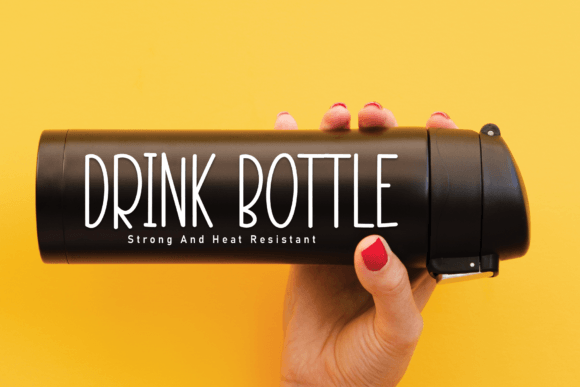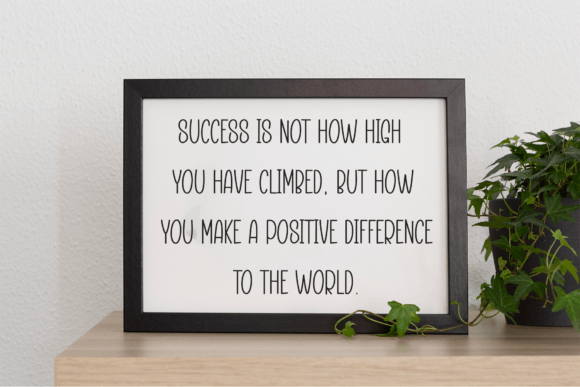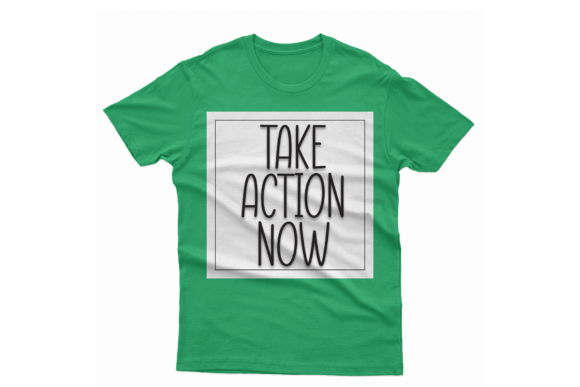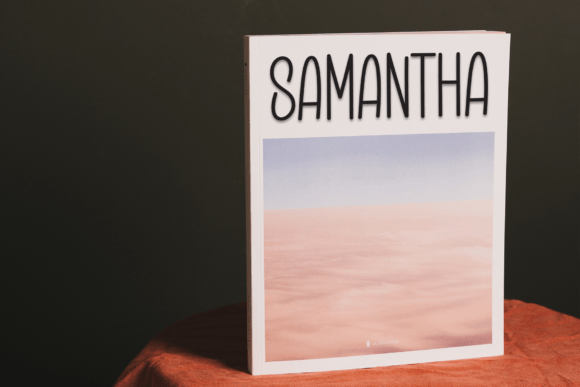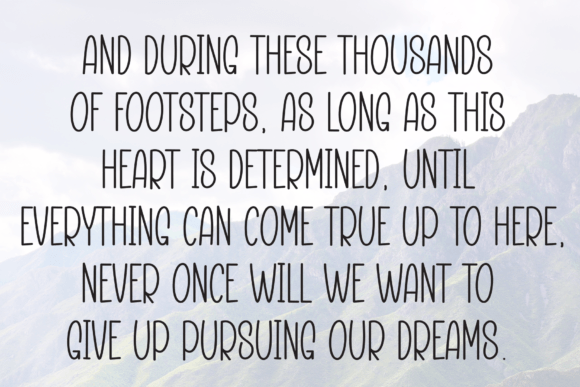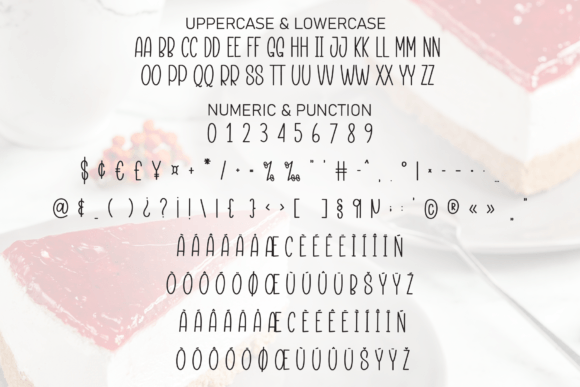
Introducing Cheese Cake Font: The Sweetest Addition to Your Design Collection
Are you tired of using the same old fonts in your designs? Do you want to add a touch of warmth and playfulness to your creations? Look no further than Cheese Cake Font, a charming and approachable handwritten display font that’s sure to delight. In this article, we’ll dive into the features and benefits of Cheese Cake Font, and explore how it can elevate your designs to the next level.
The Charm of Handwriting
Handwriting is a unique and expressive way to add personality to your designs. It can convey a sense of warmth, friendliness, and approachability that’s hard to replicate with traditional fonts. Cheese Cake Font takes the best of handwriting and distills it into a digital font that’s easy to use and versatile. With its flowing curves and playful strokes, Cheese Cake Font is the perfect way to add a human touch to your designs.
Unleashing the Power of Playfulness
Cheese Cake Font is more than just a pretty face – it’s also a powerful tool for adding playfulness and whimsy to your designs. Whether you’re creating wedding invitations, greeting cards, or social media graphics, Cheese Cake Font can help you connect with your audience on a more personal level. Its irresistible sweetness and playfulness make it perfect for designers and crafters who want to create designs that are fun, lighthearted, and engaging.
So, what can you use Cheese Cake Font for? The possibilities are endless! Here are just a few ideas to get you started:
- Wedding invitations and stationery: Add a touch of romance and whimsy to your wedding designs with Cheese Cake Font.
- Greeting cards: Create one-of-a-kind greeting cards that are sure to delight with Cheese Cake Font.
- Social media graphics: Add a playful twist to your social media graphics and connect with your audience on a more personal level.
- Branding and packaging: Use Cheese Cake Font to create custom branding and packaging that’s fun, playful, and memorable.
Why Choose Cheese Cake Font?
So, what sets Cheese Cake Font apart from other fonts on the market? Here are just a few reasons why designers and crafters love Cheese Cake Font:
- Unique and expressive: Cheese Cake Font is a one-of-a-kind font that’s sure to make your designs stand out.
- Versatile: Cheese Cake Font can be used for a wide range of design projects, from wedding invitations to social media graphics.
- High-quality: Cheese Cake Font is a high-quality font that’s designed to look great in any size or resolution.
Breathe Life into Your Designs
Are you ready to take your designs to the next level with Cheese Cake Font? With its charming and approachable nature, Cheese Cake Font is the perfect way to add a touch of warmth and playfulness to your creations. Whether you’re a designer, crafter, or DIY enthusiast, Cheese Cake Font is sure to become your go-to resource for creating designs that are fun, engaging, and memorable.
Get Ready to Fall in Love with Cheese Cake Font